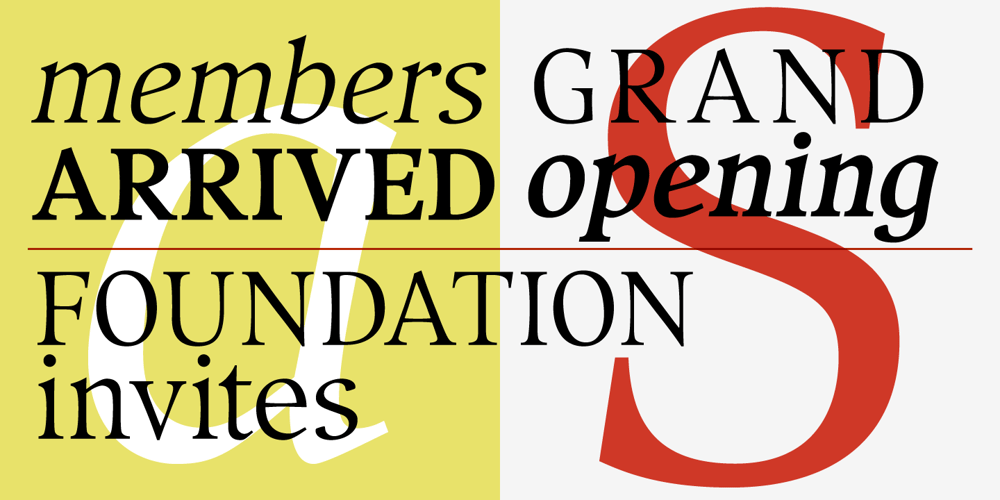
Compatil Exquisit
Compatil Exquisit font
Compatil Exquisit Font Family was designed by Olaf Leu, Linotype Design Studio and published by Linotype. Compatil Exquisit contains 4 styles and family package options. Compatil from Linotype is the first comprehensive type system which enables all typographical elements to be used to full effect in order to reproduce the message conveyed by text information. Four different type styles with a total of 16 weights including italics have been merged into a unique typographical network. There are now no limits to the font user’s creativity.The system is a product of technical innovation and constitutes a new design approach which meets the highest aesthetic standards.Compatil is a typeface family from the Platinum Collection. This series was created for the highest quality demanded by professional typography and includes complete families digitized using the newest technology, serving the specific needs of corporate design and similar projects.This Value Pack contains four different type styles of the Compatil type system: Linotype Compatil Exquisit Pro Regular, Italic, Bold and Bold Italic. These Pro fonts include the small caps and Adobe Central European character set for OpenType-supporting applications like Adobe InDesign.